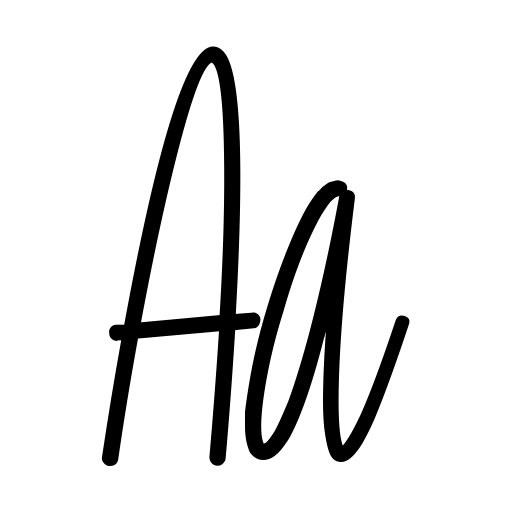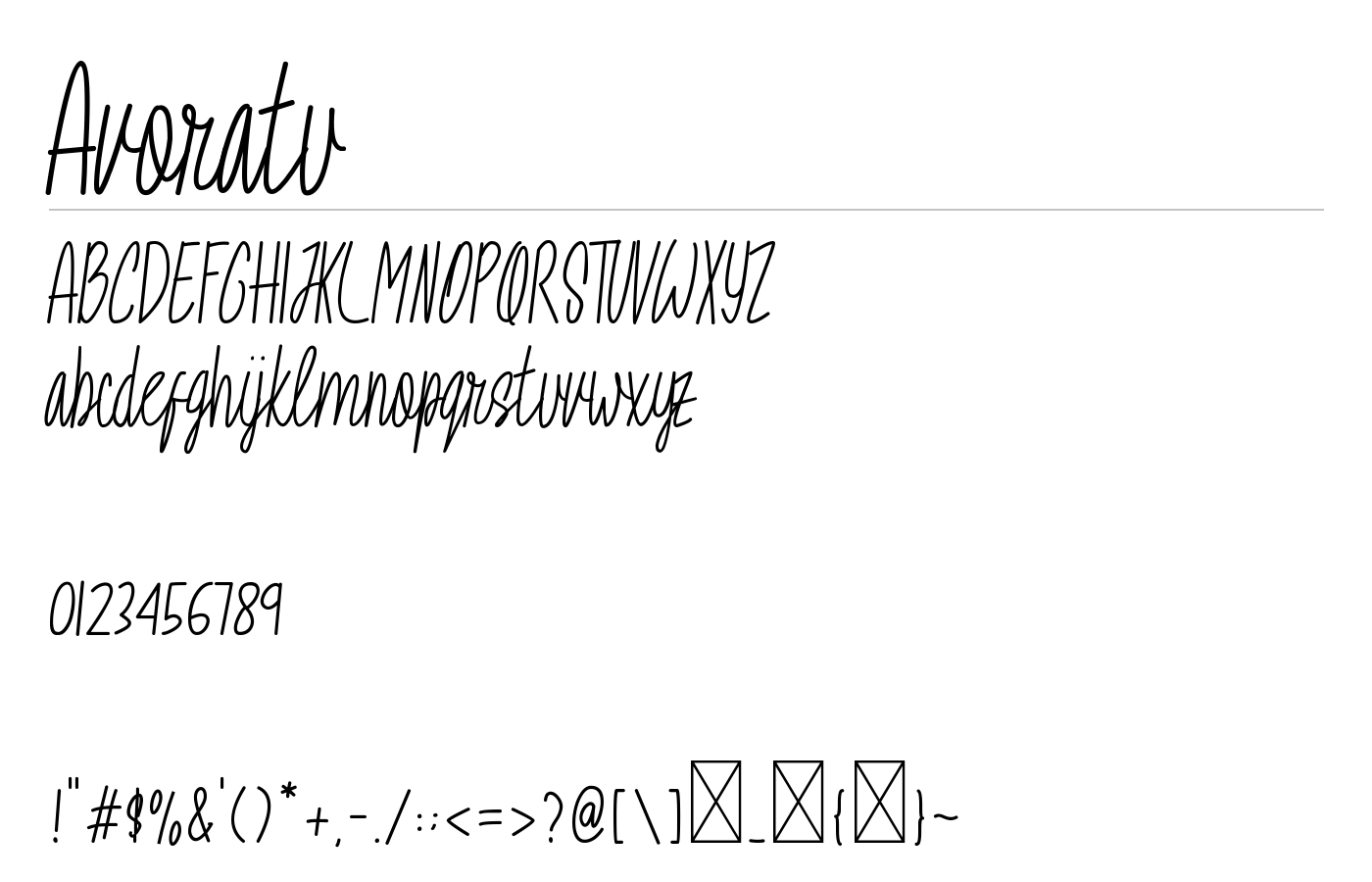
Avoratu is a slender, handwritten script font that features tall, narrow letterforms with a casual yet elegant flow. Its light weight and slightly irregular strokes give it a personal, approachable feel, making it ideal for creative projects, invitations, or brands seeking a friendly and unique touch. This font works best in headlines or accent text where its distinctive style can stand out and make an impression.
Avoratu Font